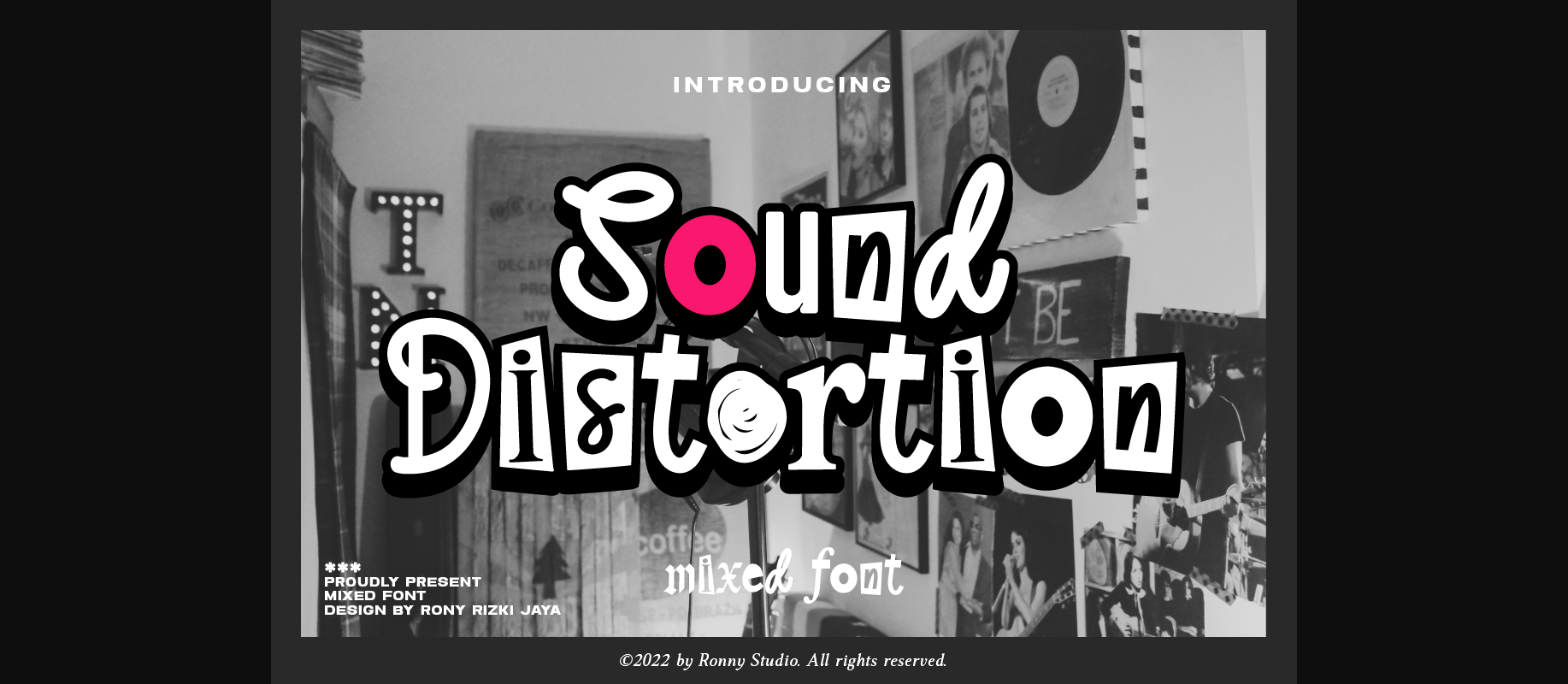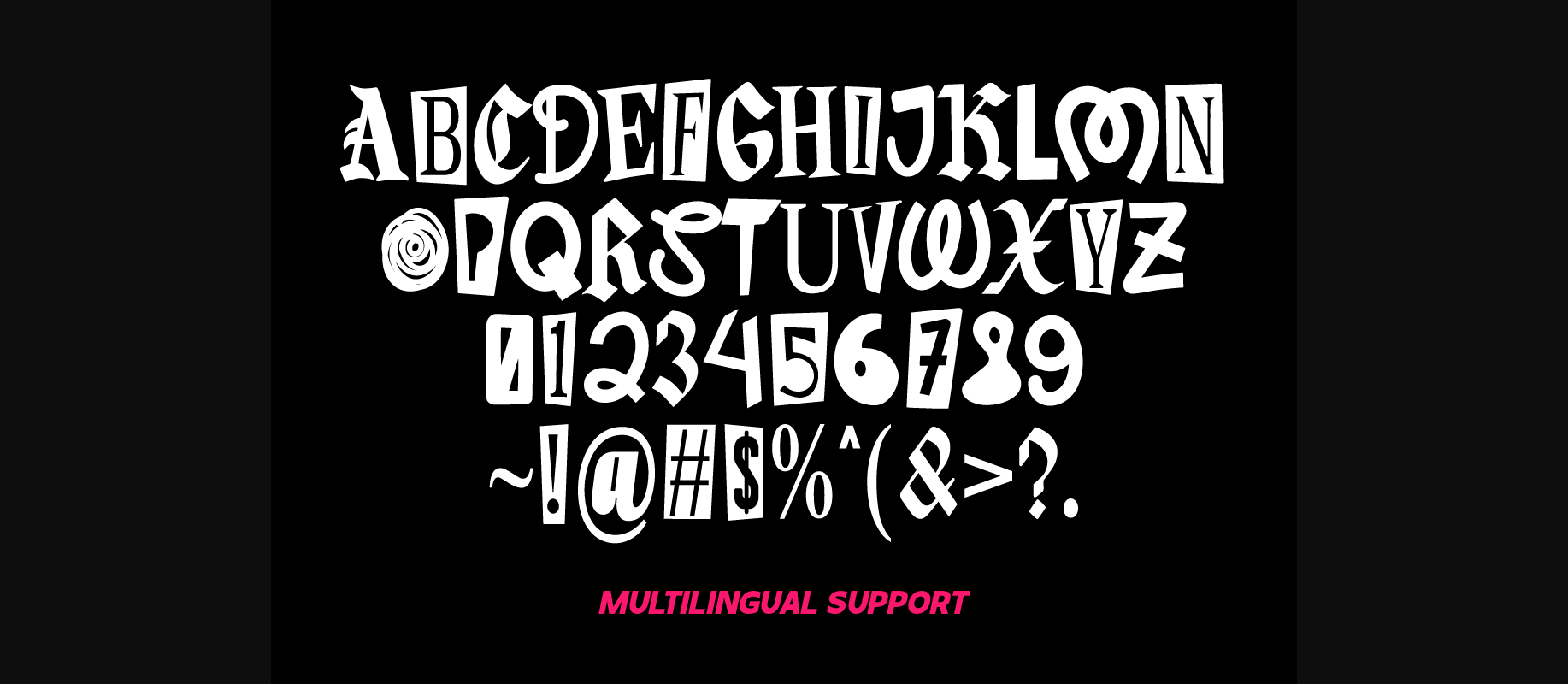
About Sound Distortion Font
“Sound Distortion” is a mixed font inspired by retro collage art and clipping of old newspapers.
Feel the old school taste with this block font mixed with sans serif, condensed serif, blackletter, handwriting, and old typewriter style, combined into a chaotic collage style.
You can also mix and match the letter by using the alternated characters or switching with the lowercase which gives you a more attractive design.
Feel the old school taste with this block font mixed with sans serif, condensed serif, blackletter, handwriting, and old typewriter style, combined into a chaotic collage style.
You can also mix and match the letter by using the alternated characters or switching with the lowercase which gives you a more attractive design.